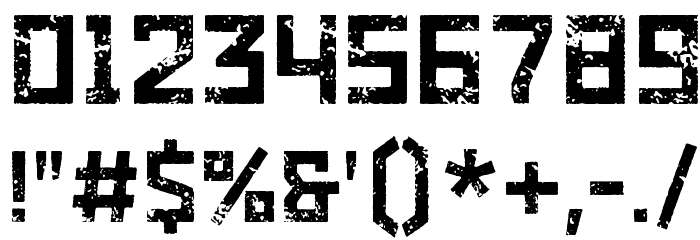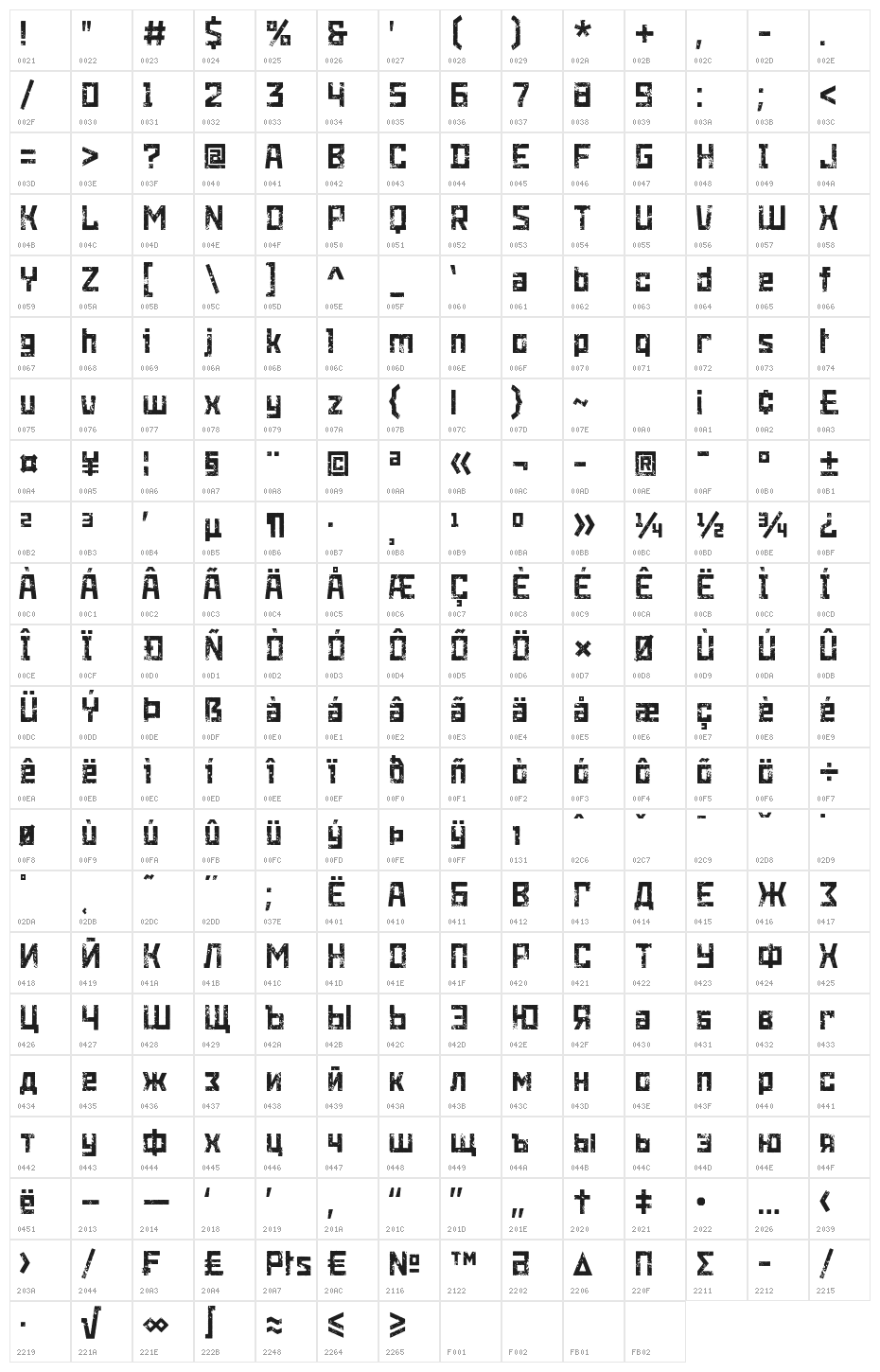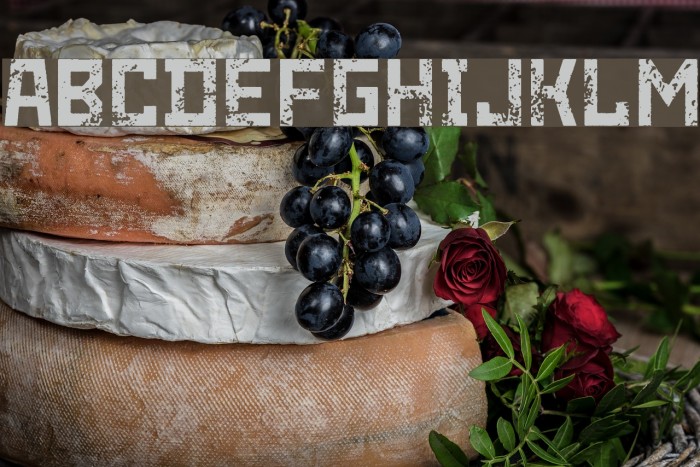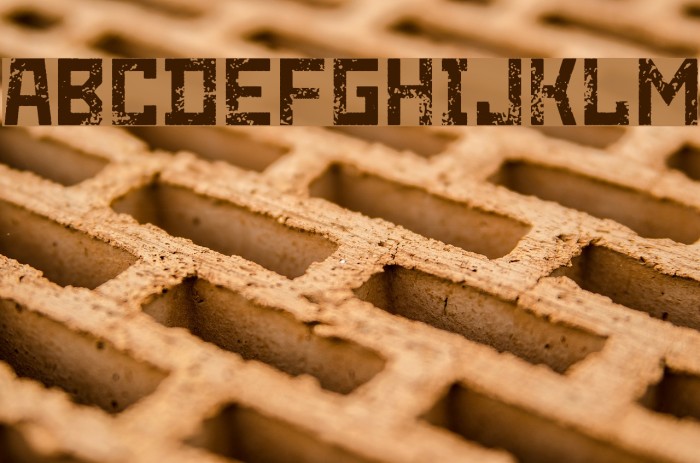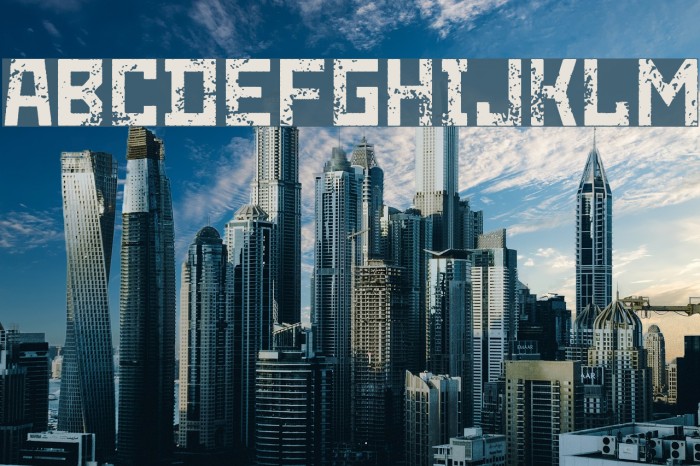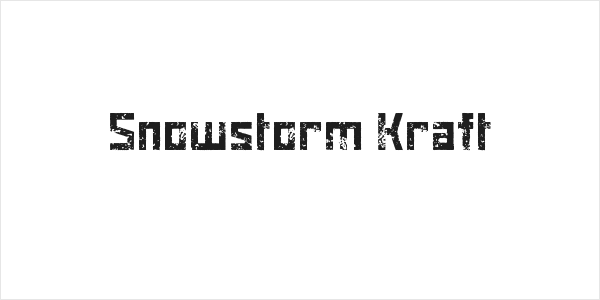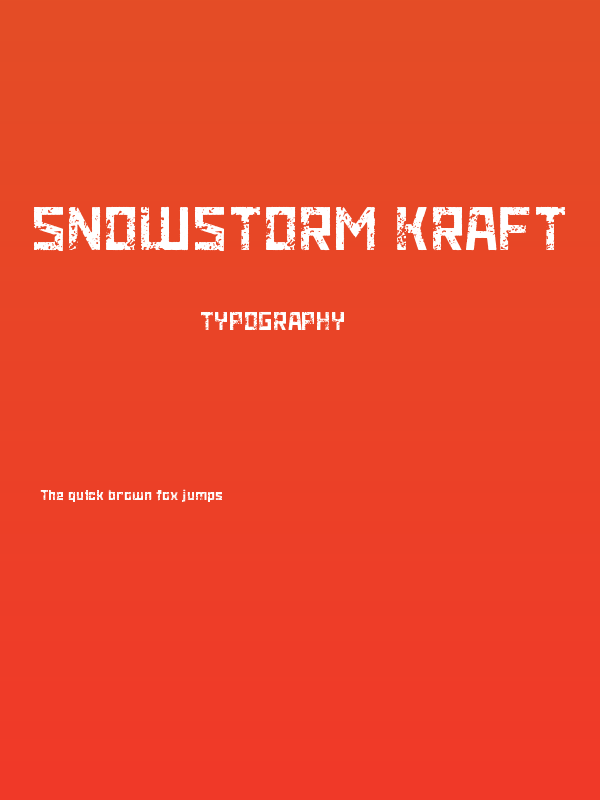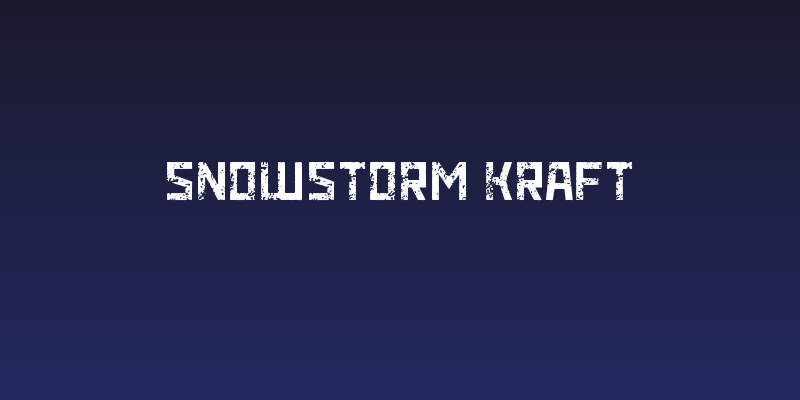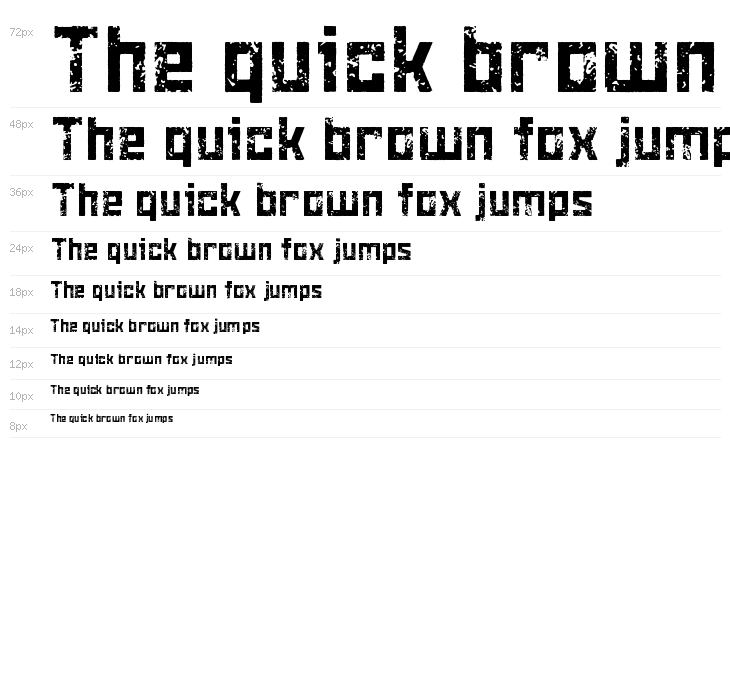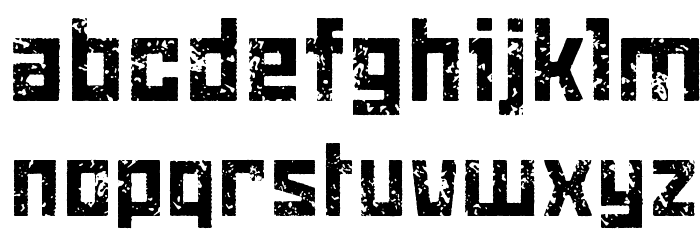
Snowstorm Kraft Font
Snowstorm Kraft Description
This font features a rugged, distressed appearance, reminiscent of a weathered surface or a snowstorm effect. The characters are bold and blocky, with a textured pattern that gives them a worn, vintage look. The uppercase and lowercase letters maintain a consistent style, with sharp edges and a slightly uneven texture that adds to the overall distressed aesthetic. The numbers and special characters follow the same design, ensuring a cohesive appearance across all elements. This font is ideal for projects that require a bold, eye-catching display with a touch of grunge or industrial style.
| Overall Style | Vintage, Grunge |
| Proposed Projects | Ideal for posters, album covers, branding, and any design needing a bold, grunge aesthetic. |